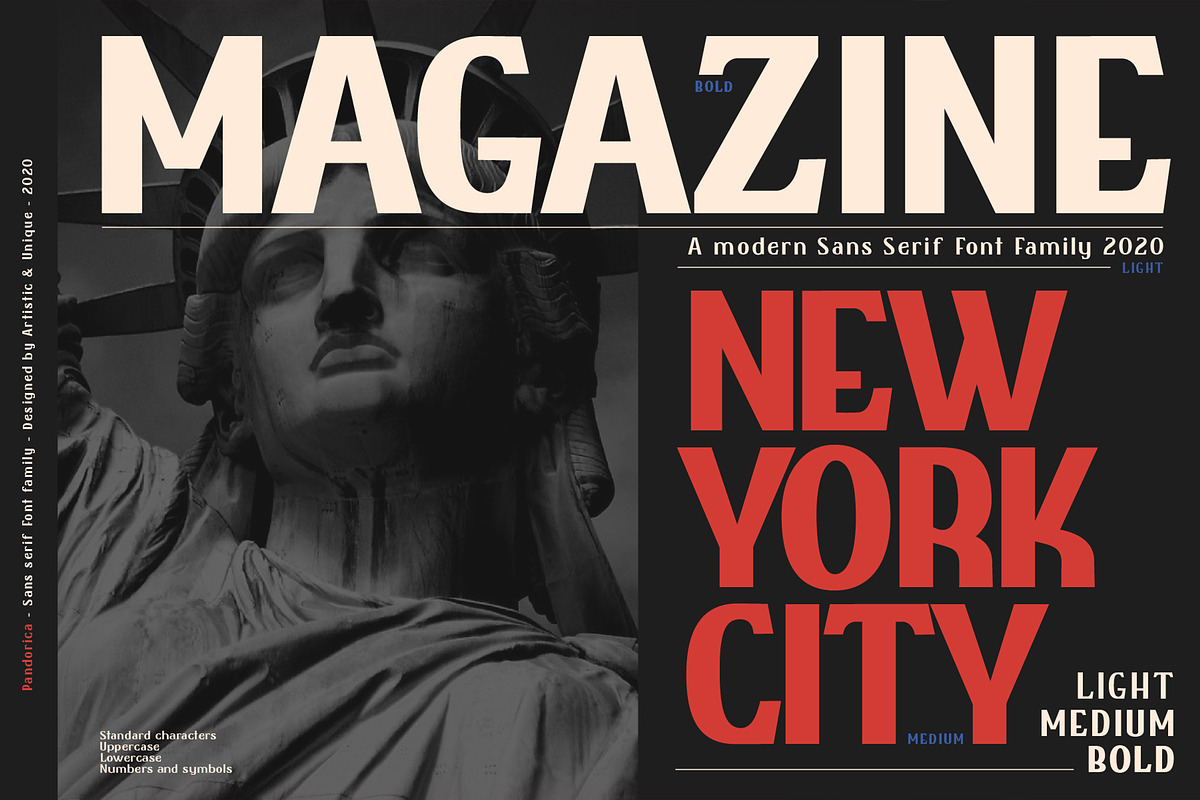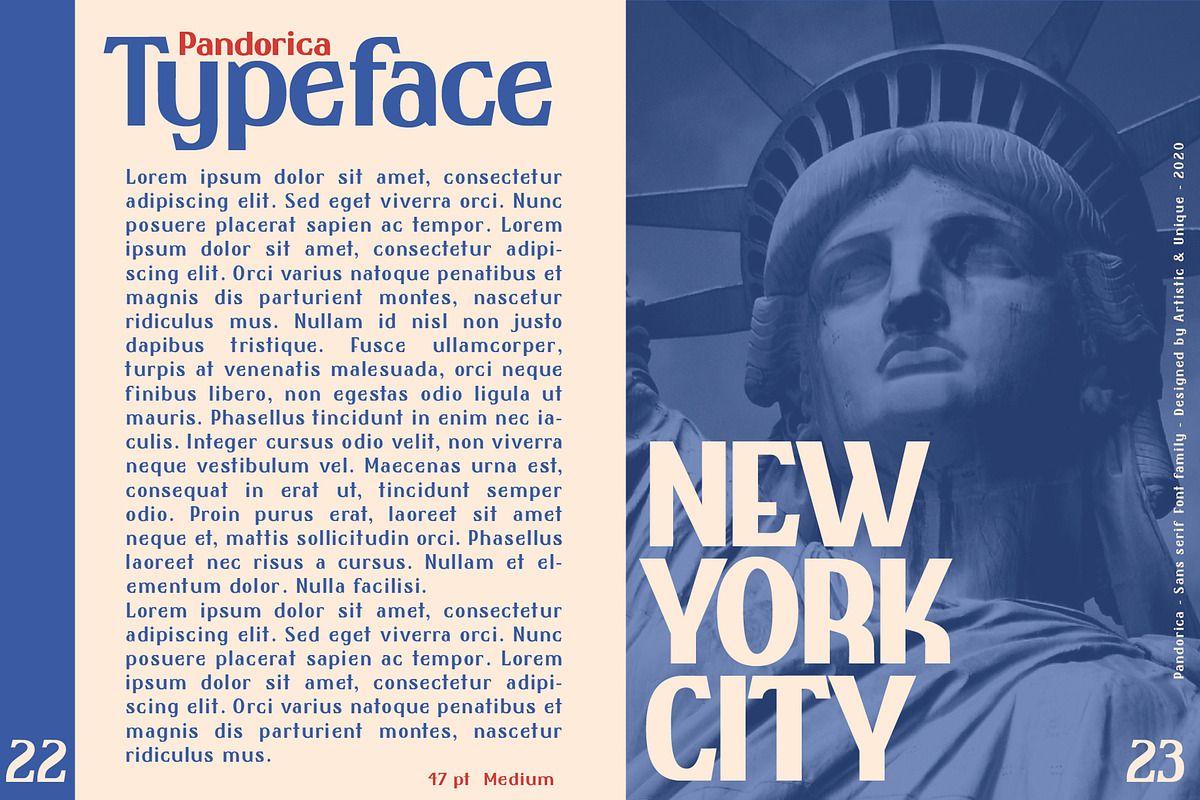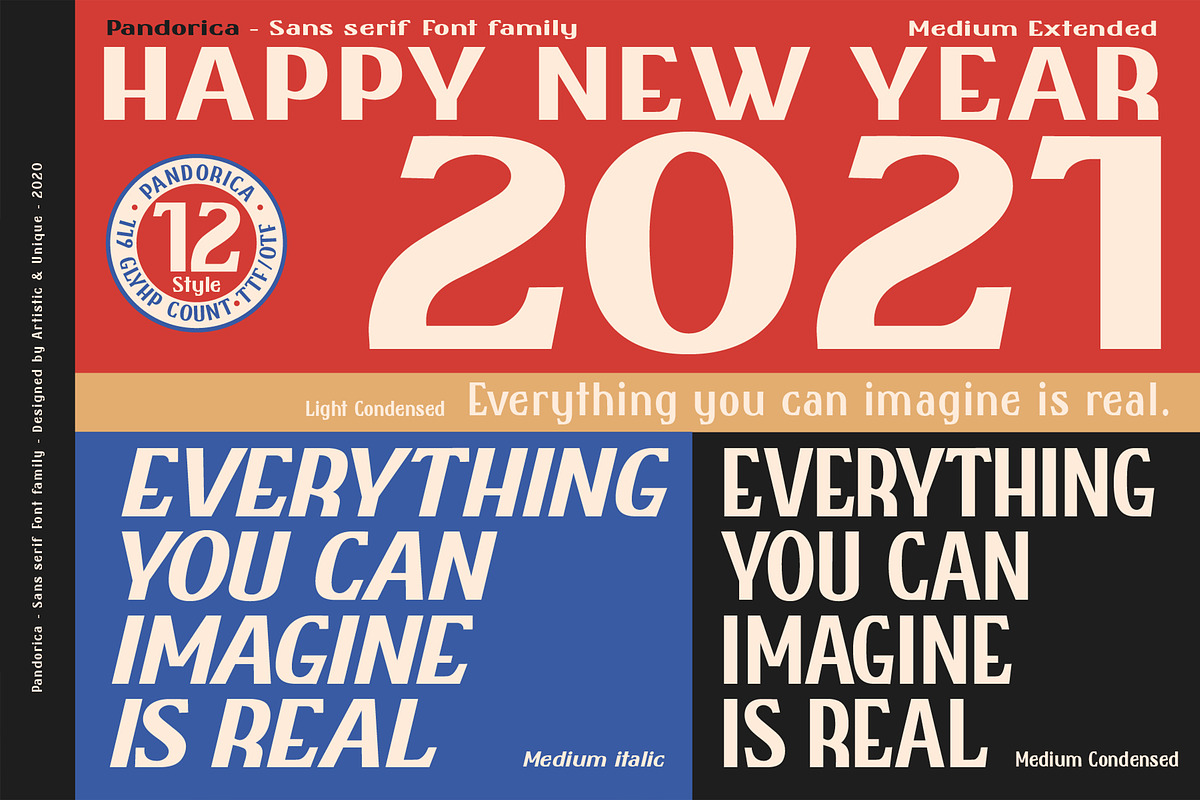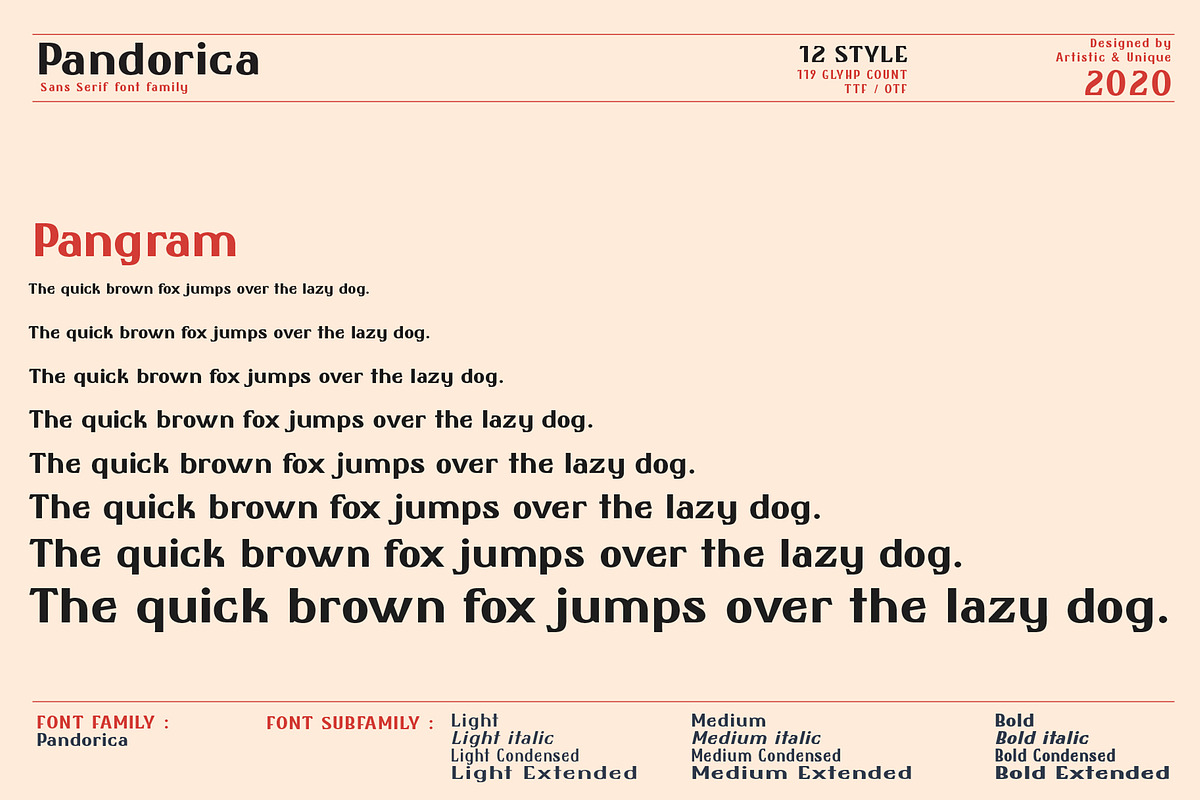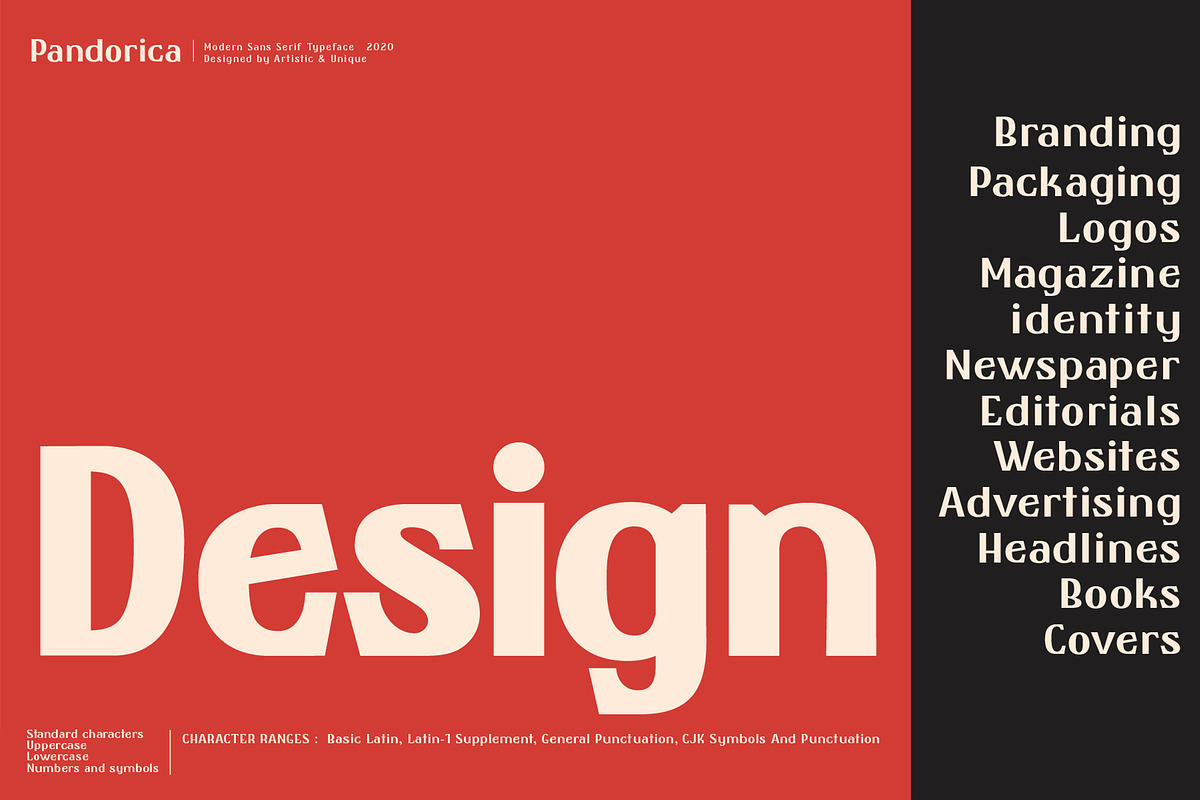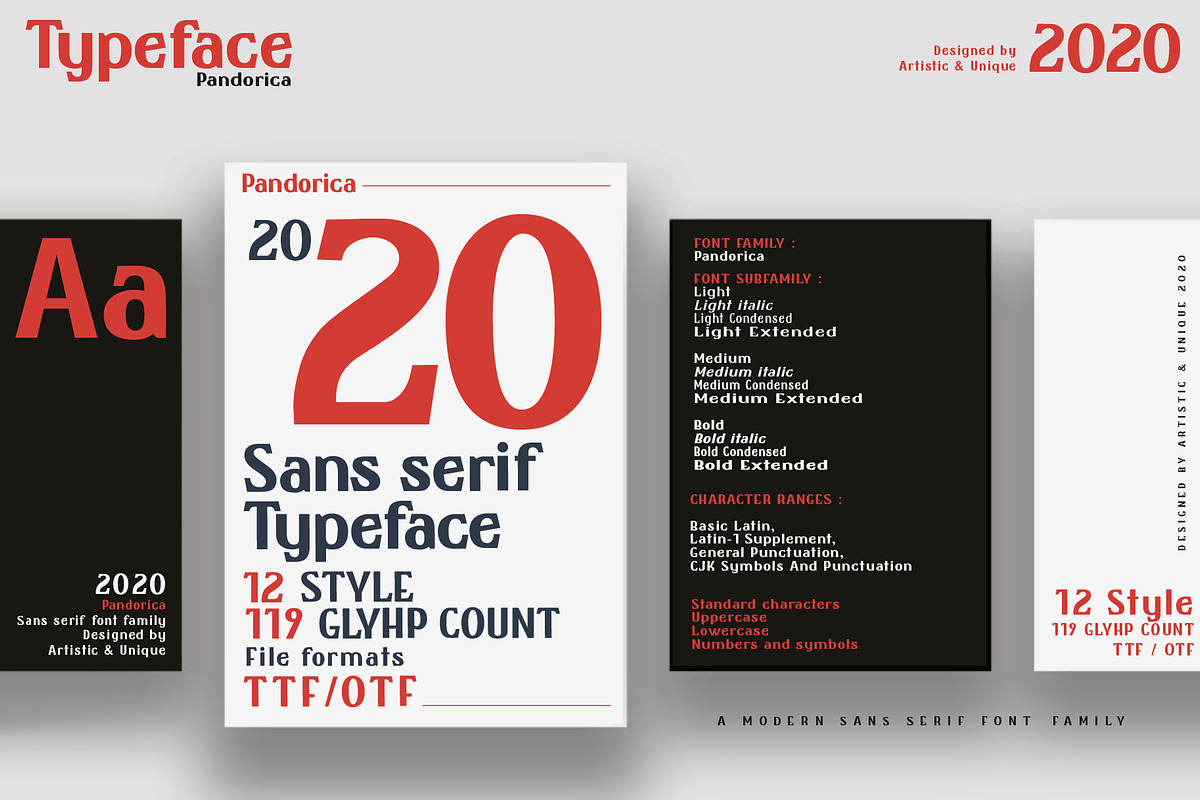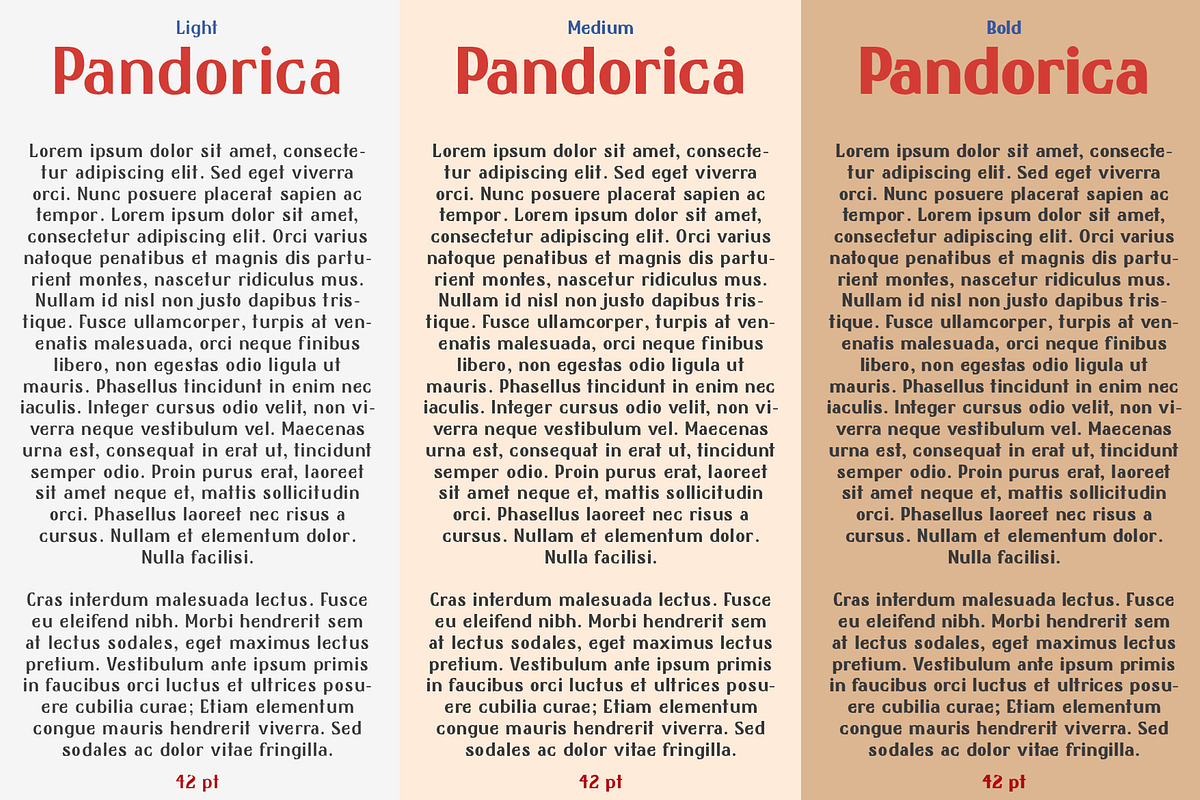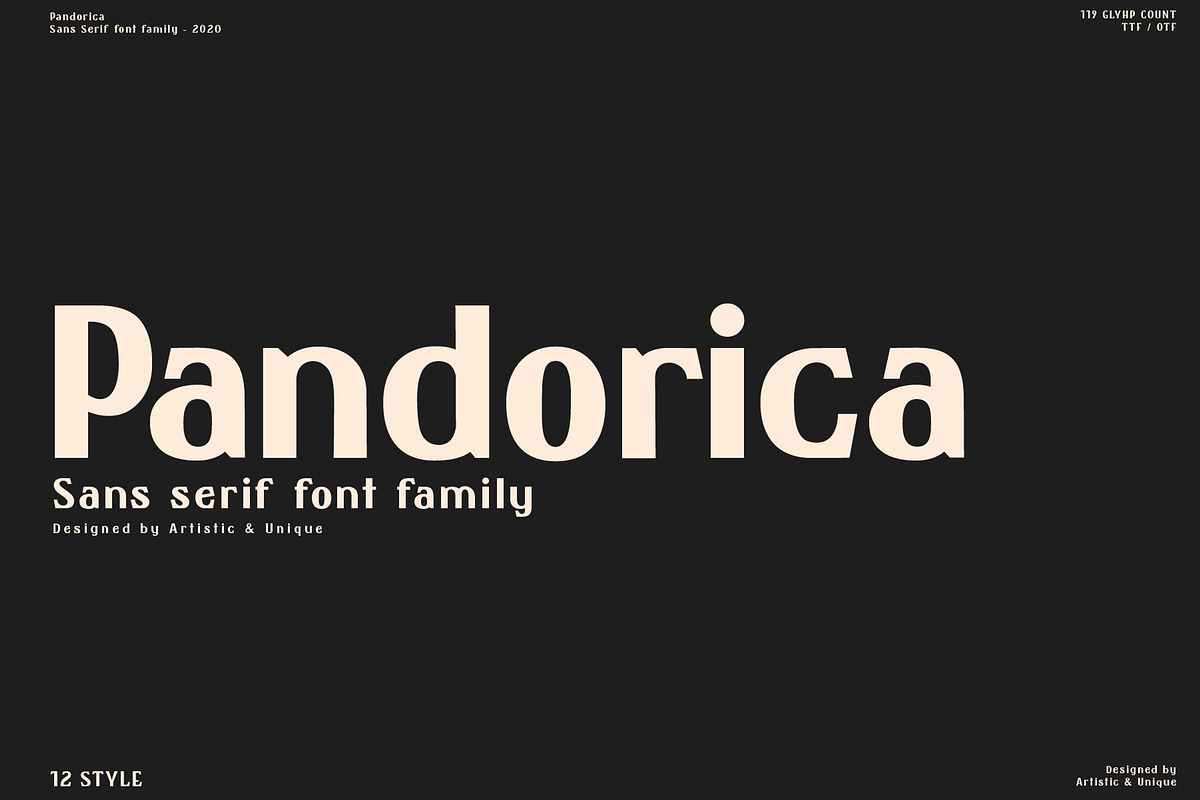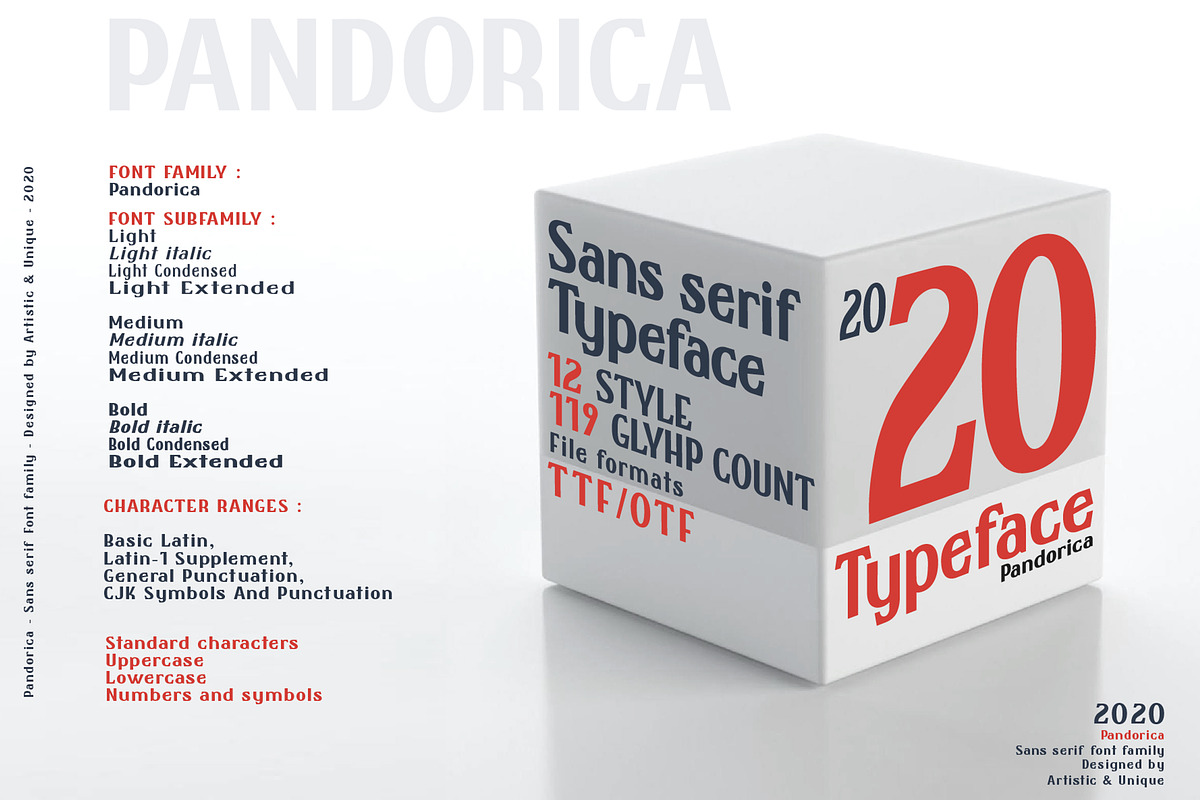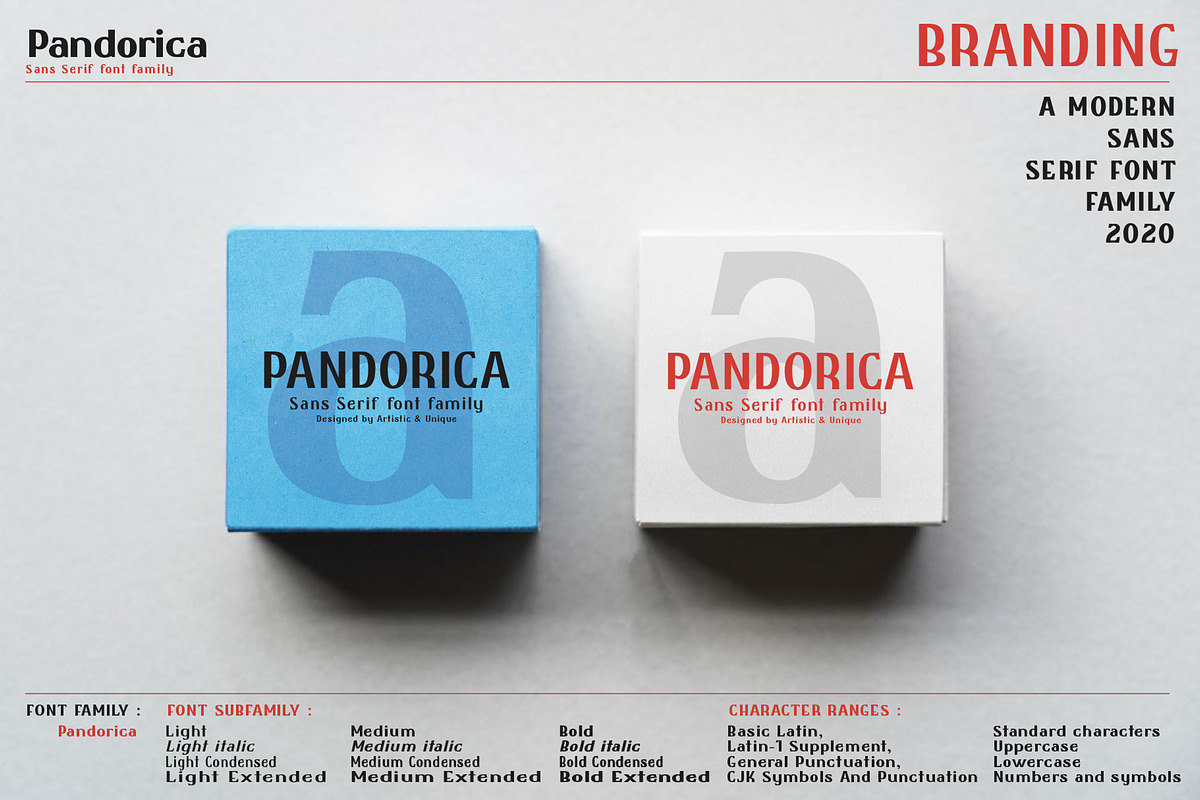
Pandorica-Sans serif font family
INTRODUCING
If you're looking for a stylized sans serif font, Pandorica might be the font you're looking for with its unique structure.
Pandorica is a distinctive modern sans serif font. It offers rich solutions to your creative projects with its alternative versions. You can easily use the sans serif font feature in many areas. You can create your text with normal characters and highlight bold characters and titles.
This font offers a wide variety of styles to help you discover the best mood for your projects, from body text to large headlines, from classic to modern and bold styles.
Well suited for books and magazines, magazine covers, editorials, headlines, websites, logos, invitations, branding, advertising and more.
FONT FAMILY :
- Pandorica
FONT SUBFAMILY :
- Light
- Light italic
- Light Extended
- Light Condensed
- Medium
- Medium italic
- Medium Extended
- Medium Condensed
- Bold
- Bold italic
- Bold Extended
- Bold Condensed
CHARACTER RANGES :
- Basic Latin,
- Latin-1 Supplement,
- General Punctuation,
- CJK Symbols And Punctuation,
- Uppercase typeface
- Lowercase typeface
Symbols
With this font you can create your unique designs.